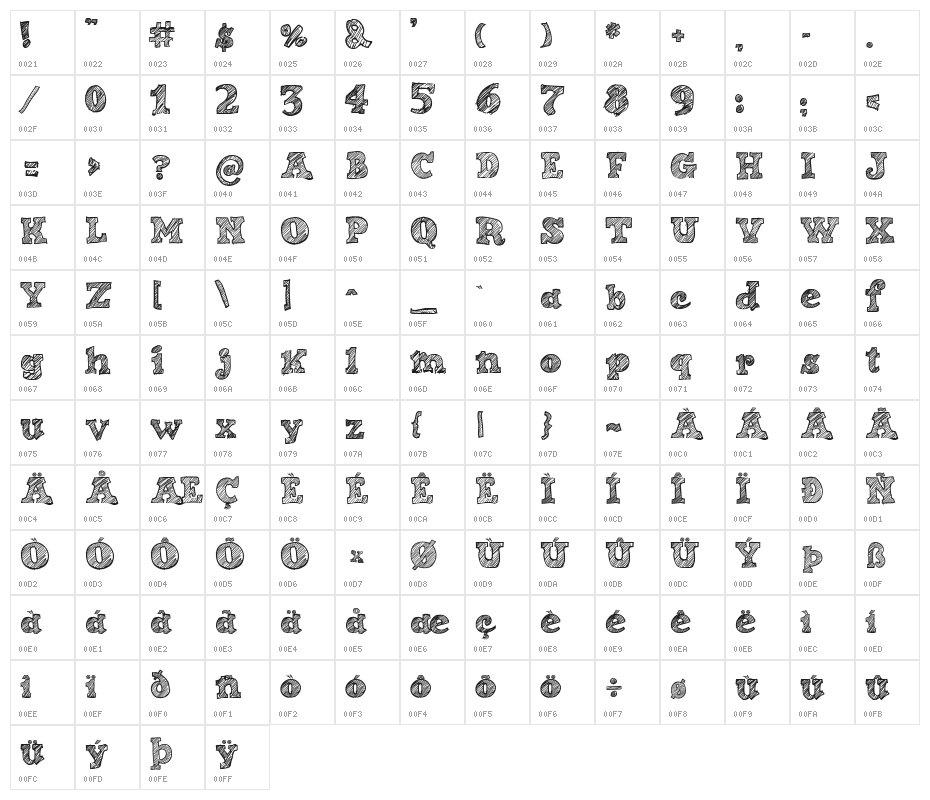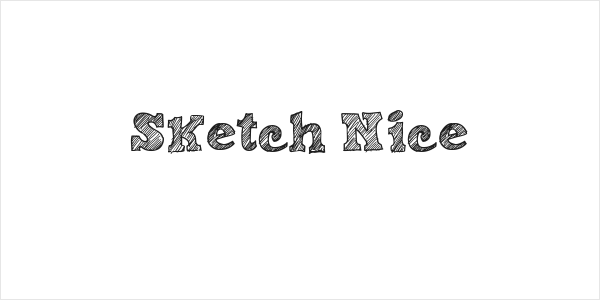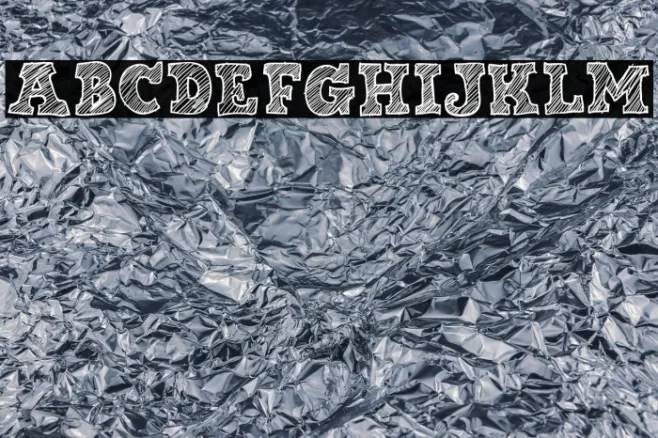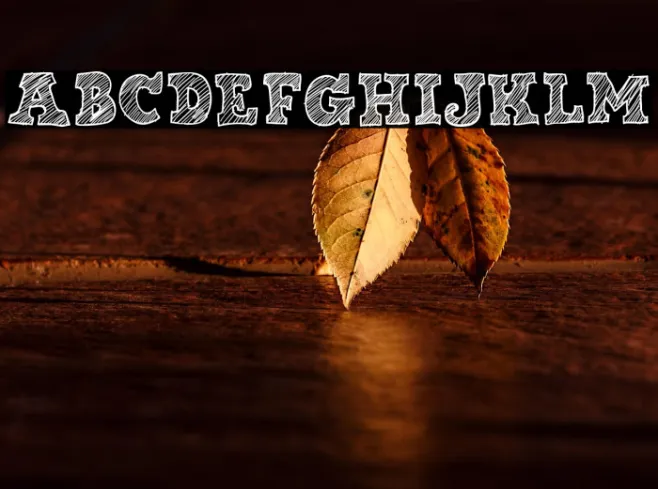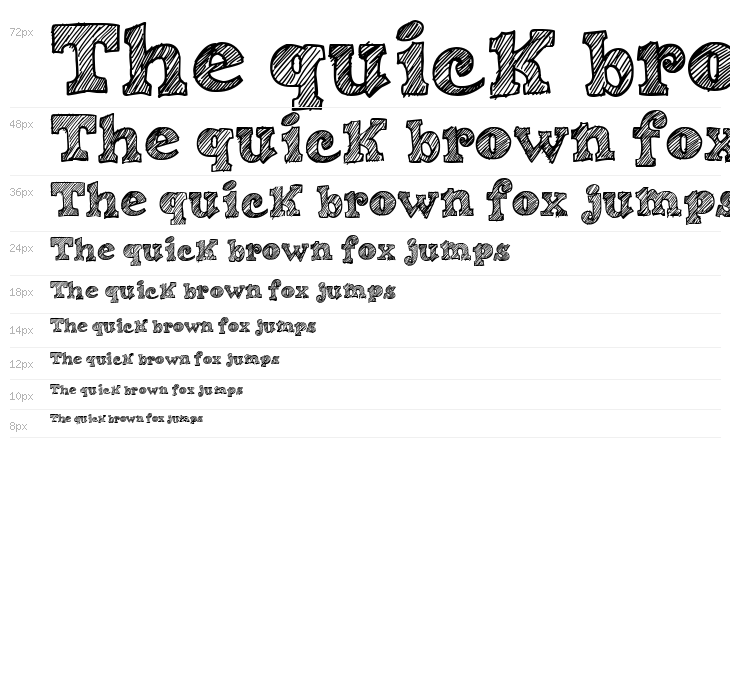
Sketch Nice Font
Sketch Nice Description
This font features a playful, hand-drawn style with a sketch-like appearance. Each character is filled with diagonal lines, giving it a textured, artistic look. The letters are bold and have a slightly irregular shape, adding to the casual and creative feel. The uppercase and lowercase letters maintain a consistent style, with the uppercase being more pronounced. Numbers and special characters follow the same sketchy design, making the font cohesive and visually engaging. It's perfect for projects that require a fun and informal touch.
| Proposed Projects | Ideal for children's books, comic strips, playful branding, and creative posters. |